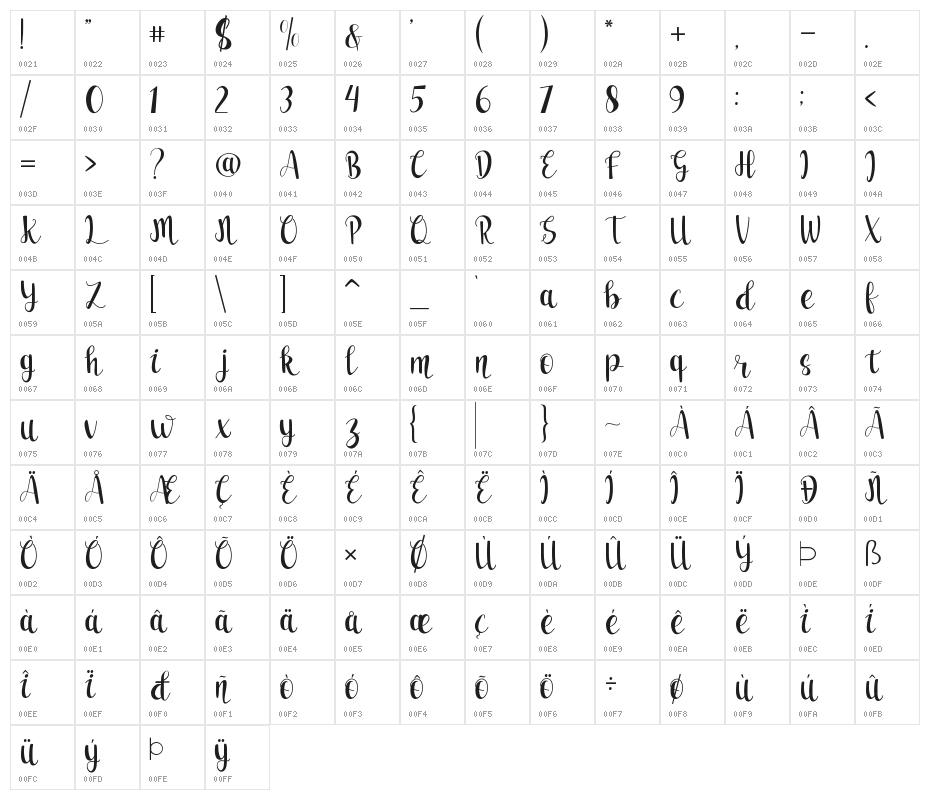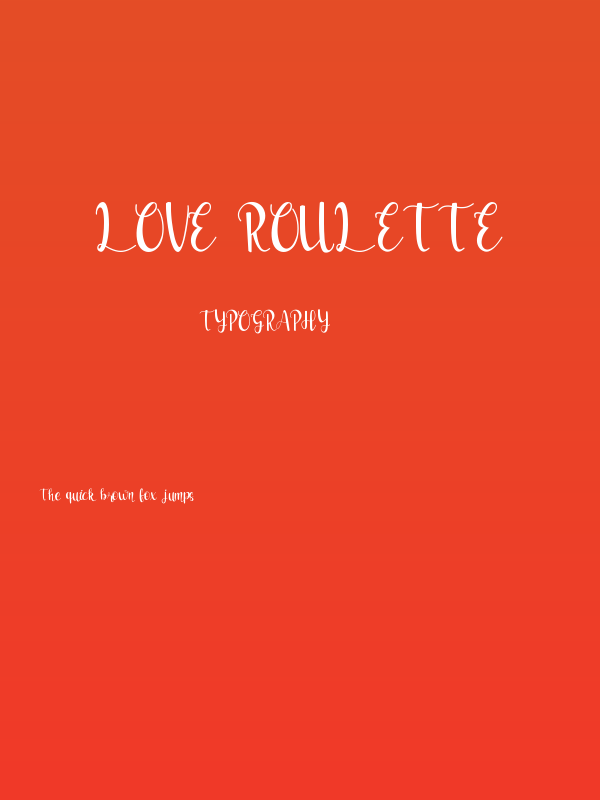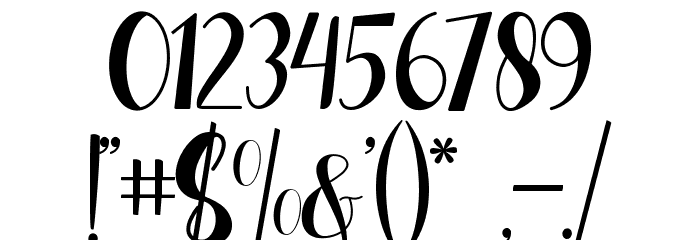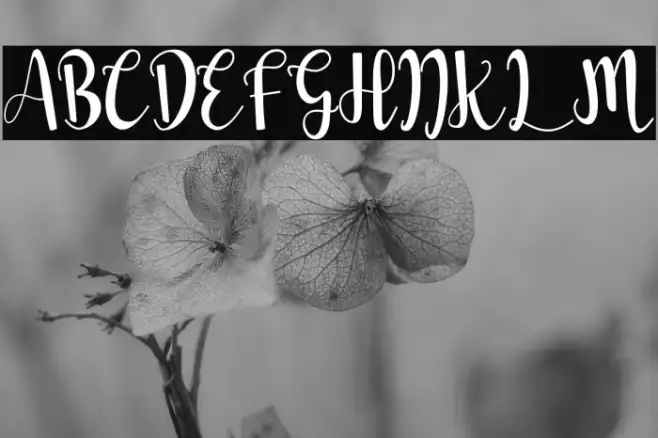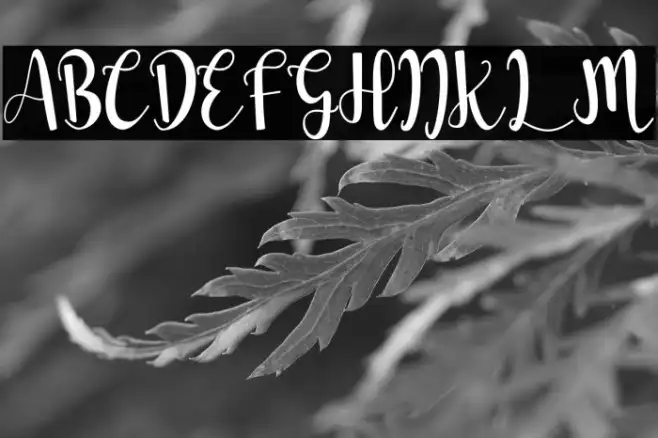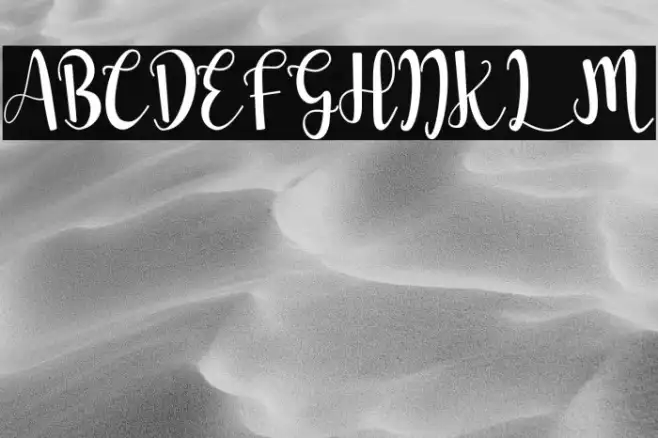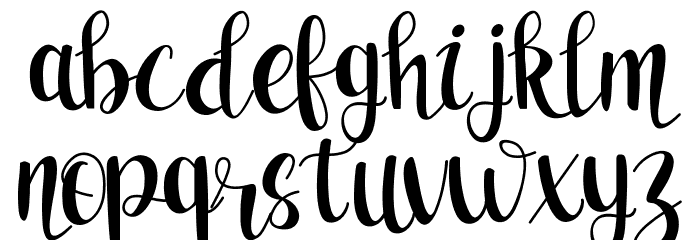
Love Roulette Font
Love Roulette Description
This font features a playful and elegant script style with a handwritten feel. The letters are characterized by their flowing, cursive forms and varying stroke widths, which add a dynamic and lively touch. The uppercase letters are bold and expressive, while the lowercase letters maintain a consistent flow, enhancing readability. The numerals and special characters are designed to complement the alphabet with similar curves and strokes. This font exudes a sense of romance and creativity, making it ideal for projects that require a personal and artistic touch.
| Proposed Projects | Ideal for wedding invitations, greeting cards, branding, and artistic projects. |